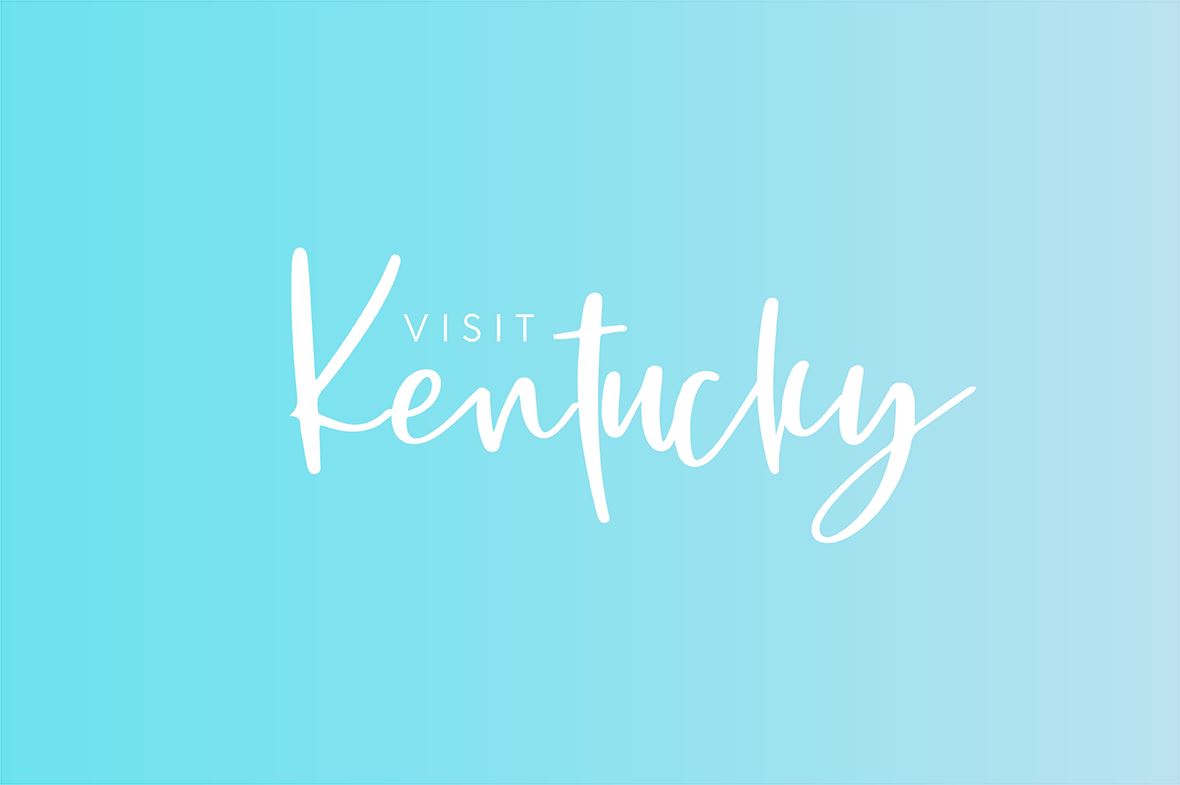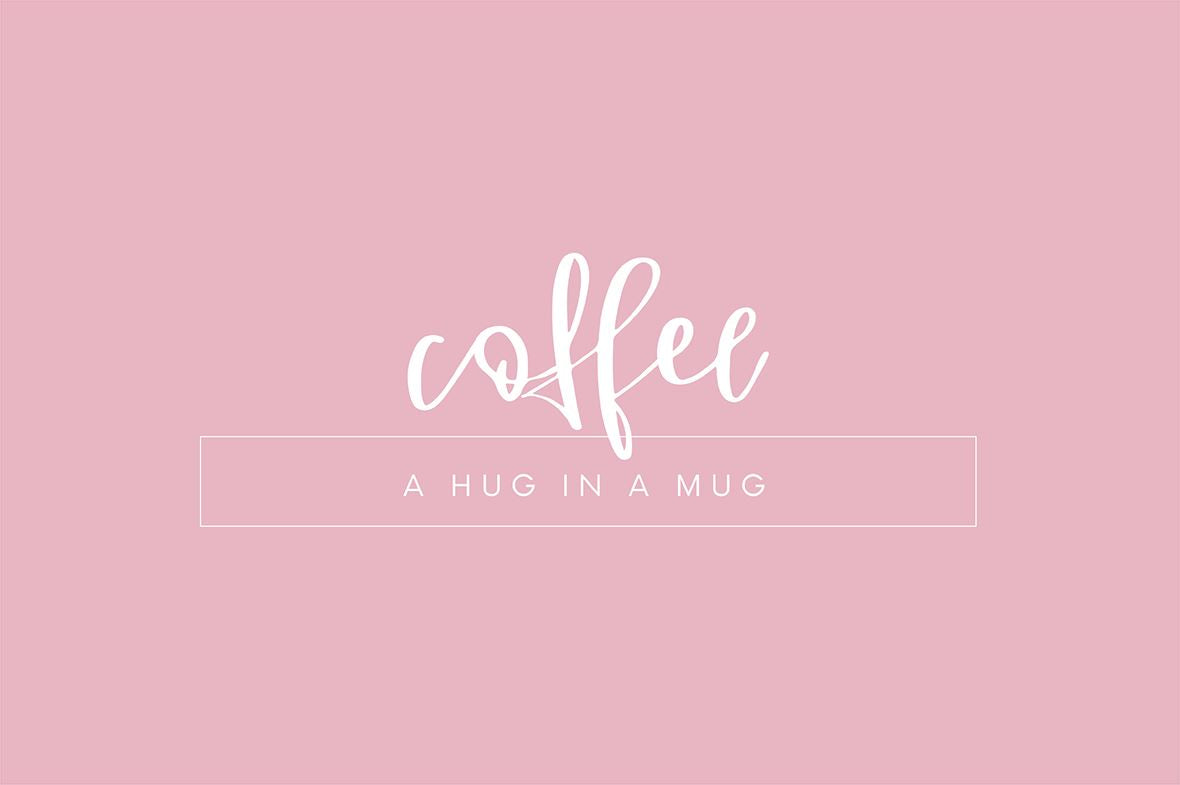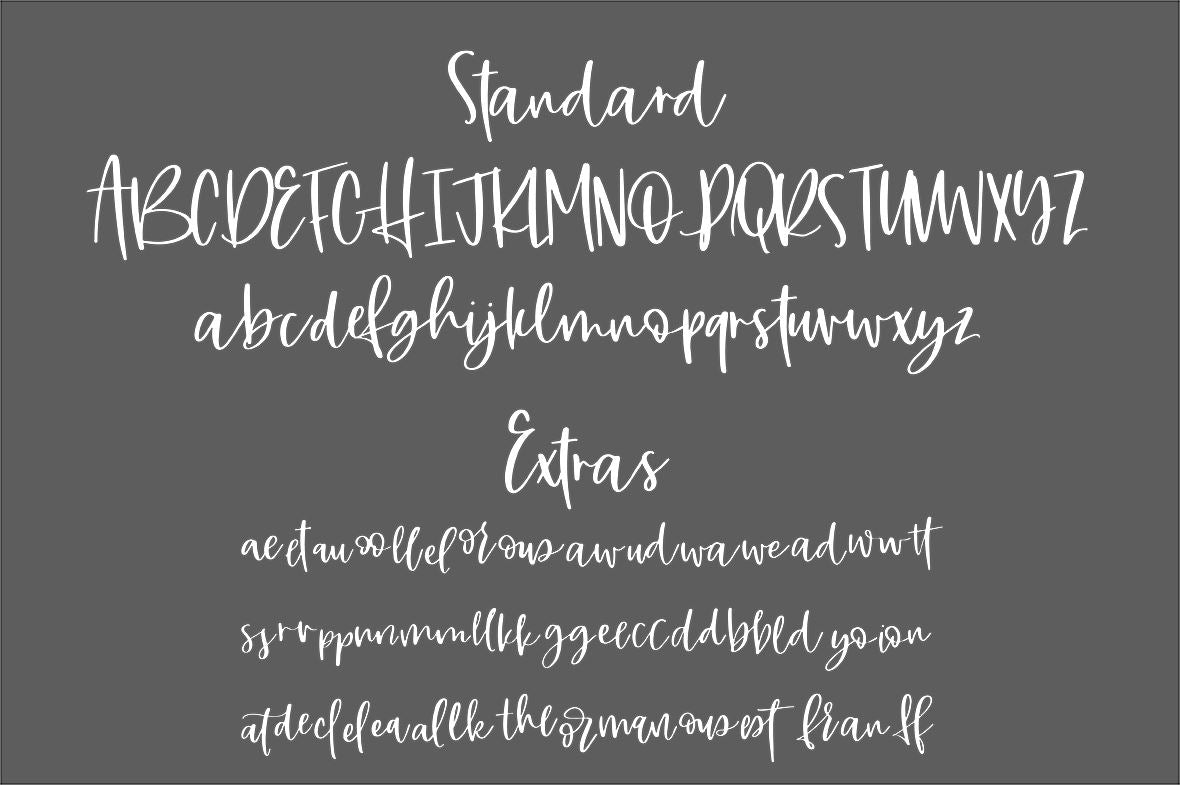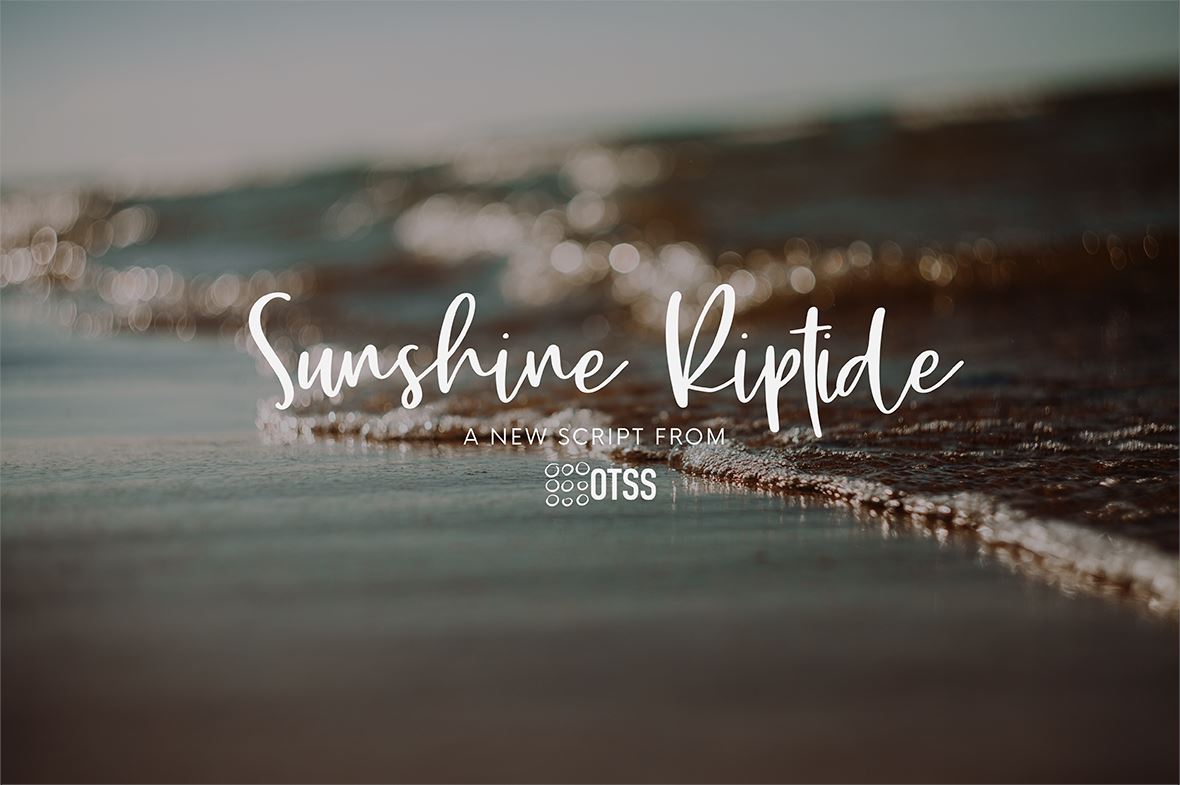
HomeScript FontsSunshine Riptide Script Fonts Sunshine Riptide FacebookXPinterestWhatsApp 1 of 5 ... ... ... ... ... About Sunshine Riptide Say hello to Sunshine Riptide! A fun yet carefree script with alternate ligatures to mix up how each word looks! DOWNLOAD NOW People also explored Unicorn Font Blind Love Font Christmas Font Shela Sweet Font Velisya Font Heavy Black Font Raven Script Font I Love You Font Butterflies Font 184 0 TagsSunshine Riptide Previous articleA Rastenoba ScriptNext articleA Willow Font LEAVE A REPLY Cancel reply Comment: Please enter your comment! Name:* Please enter your name here Email:* You have entered an incorrect email address! Please enter your email address here Website: Save my name, email, and website in this browser for the next time I comment. Personal Use Free Cute Butterfly Personal Use Free Read more about this font Rasiday Personal Use Free Read more about this font Masha Song Personal Use Free Read more about this font Airmole Personal Use Free Read more about this font BLOG How to Cut Any Font on Cricut: Convert a Font to SVG (Free) Turn any font into a clean SVG so it cuts crisp on Cricut - a quick 3-step workflow using a free font-to-SVG tool. Transform Your Website: Elevate Your Typography with 7 Best Web Font Generators Free vs Paid Fonts: Why Investing in Premium Fonts Is Worth It Free Fonts Risk: Why Free Fonts Can Be Dangerous for Designers